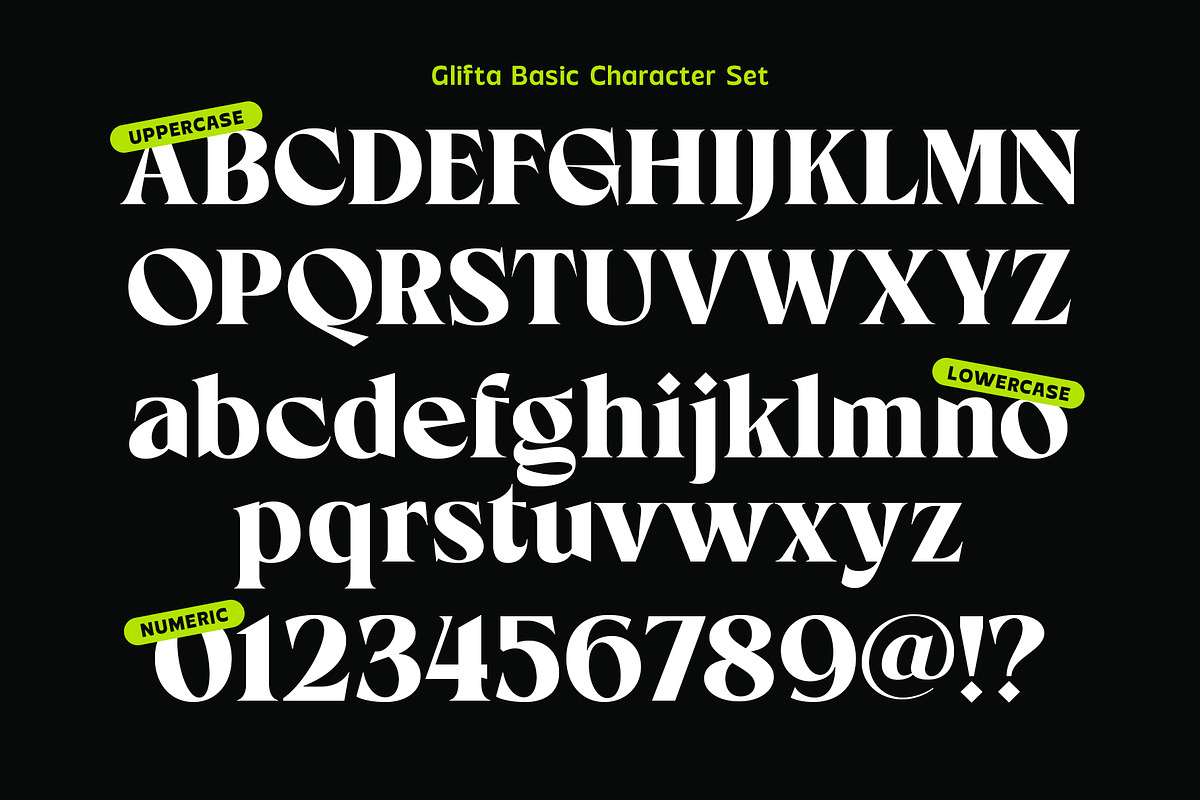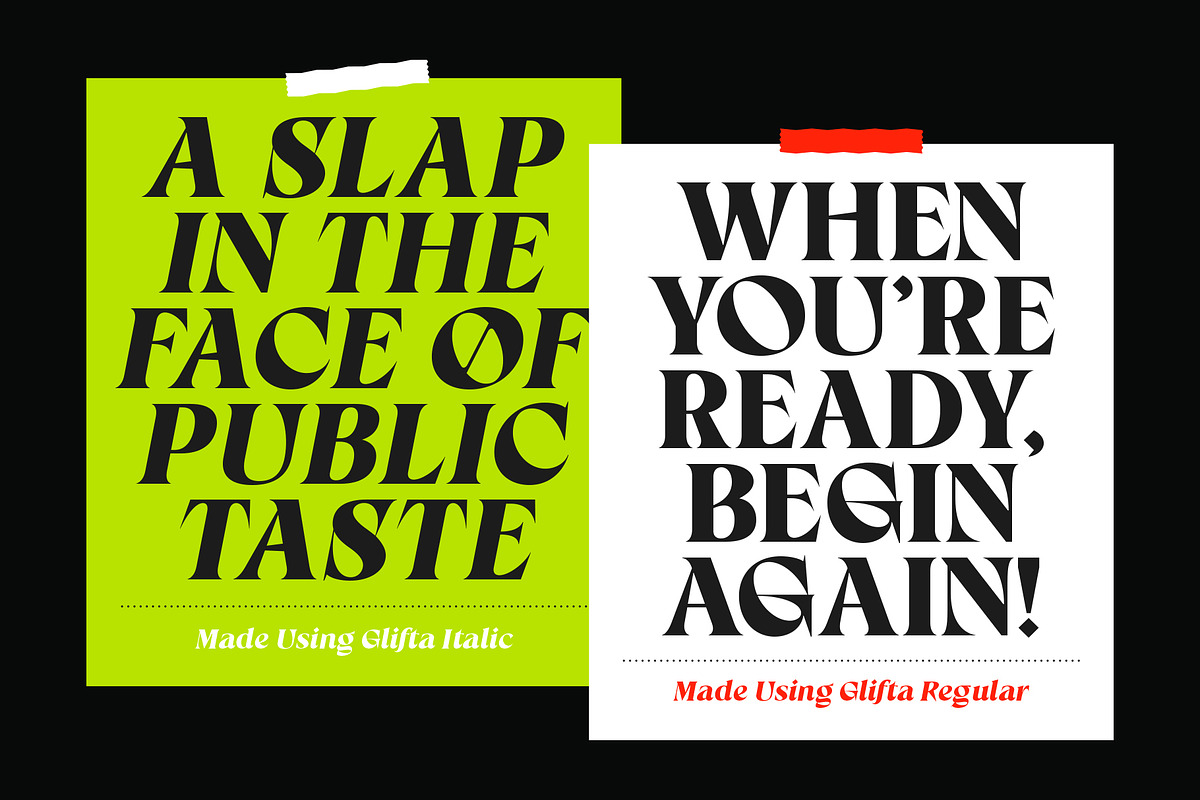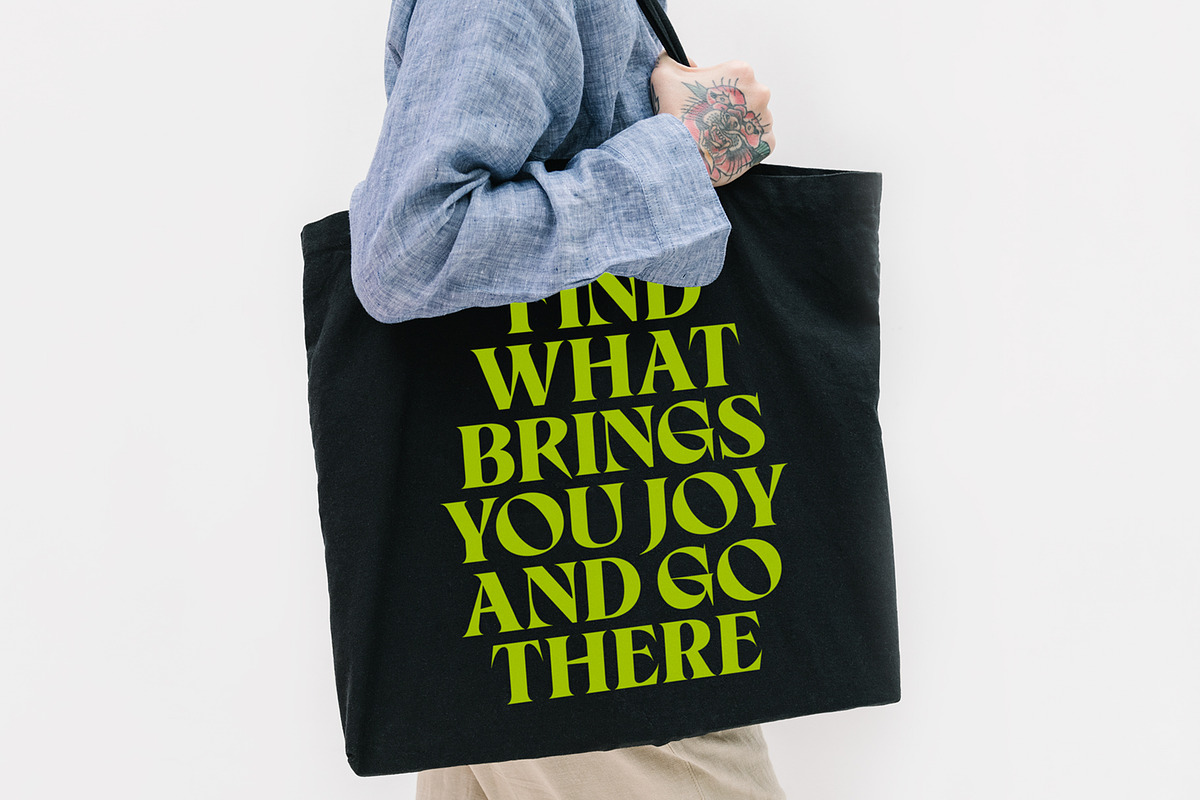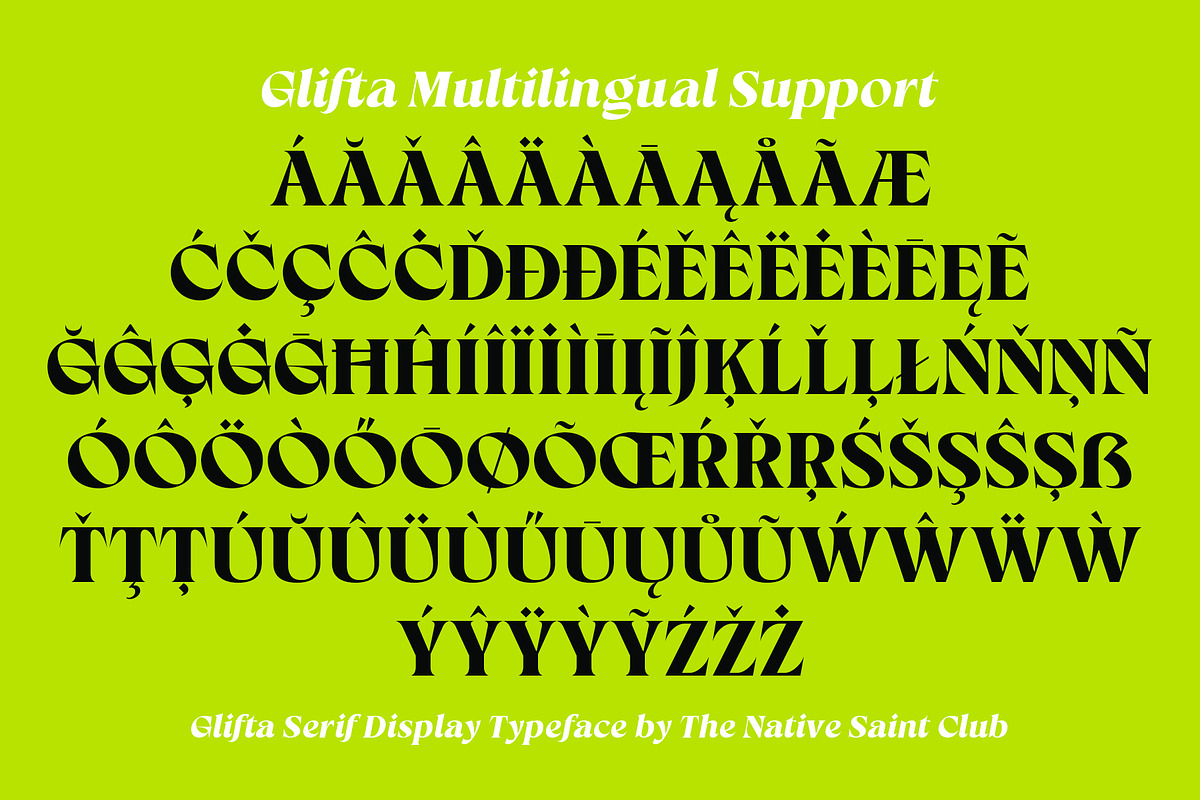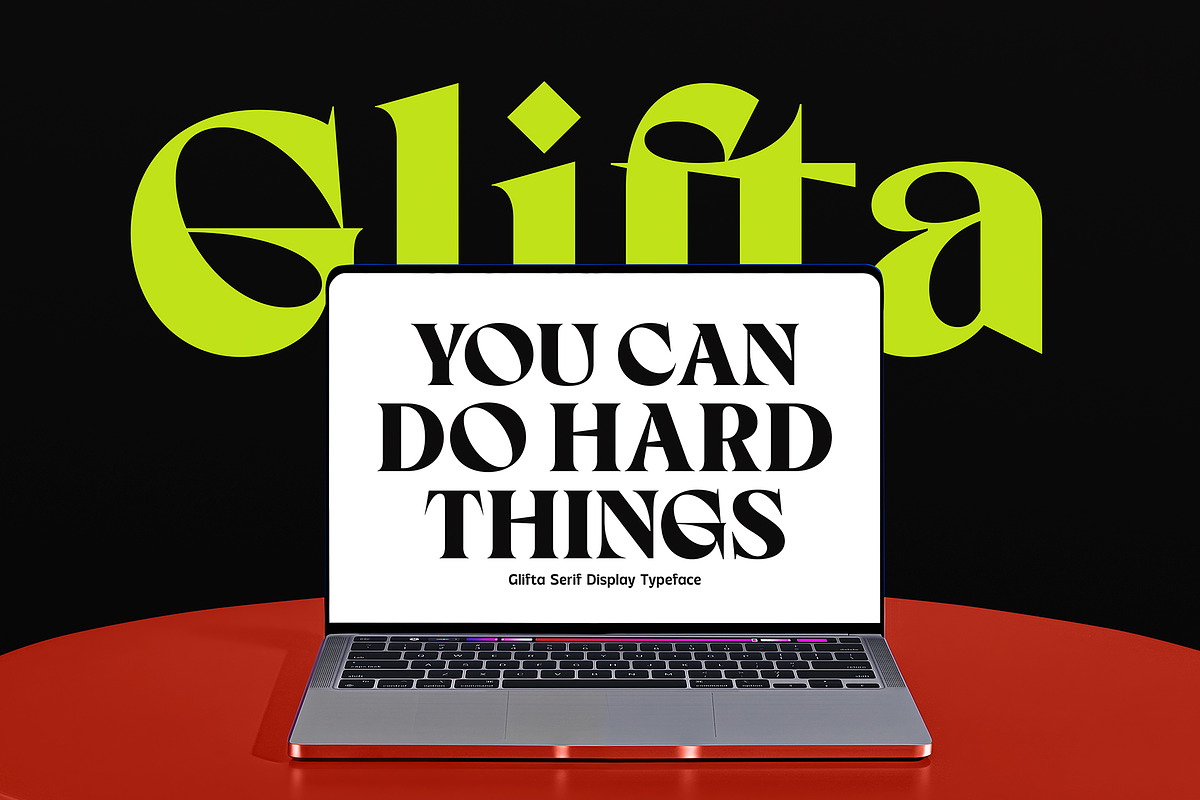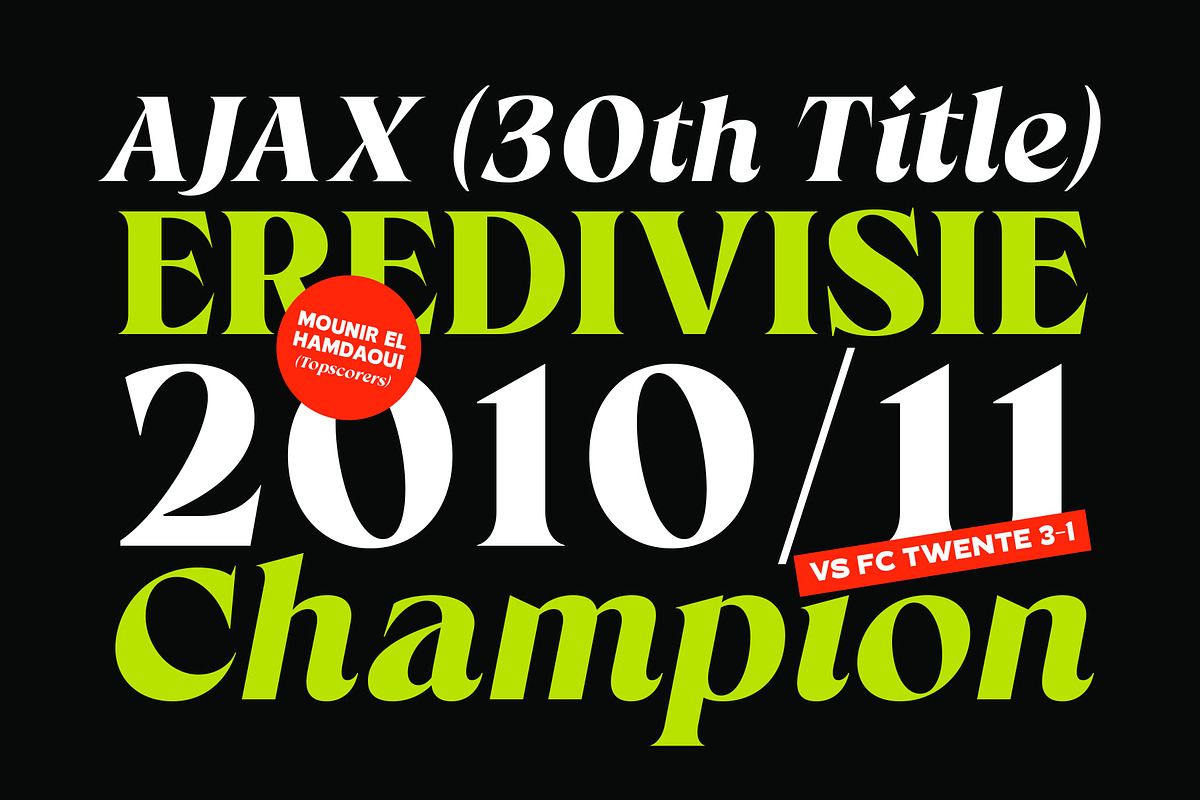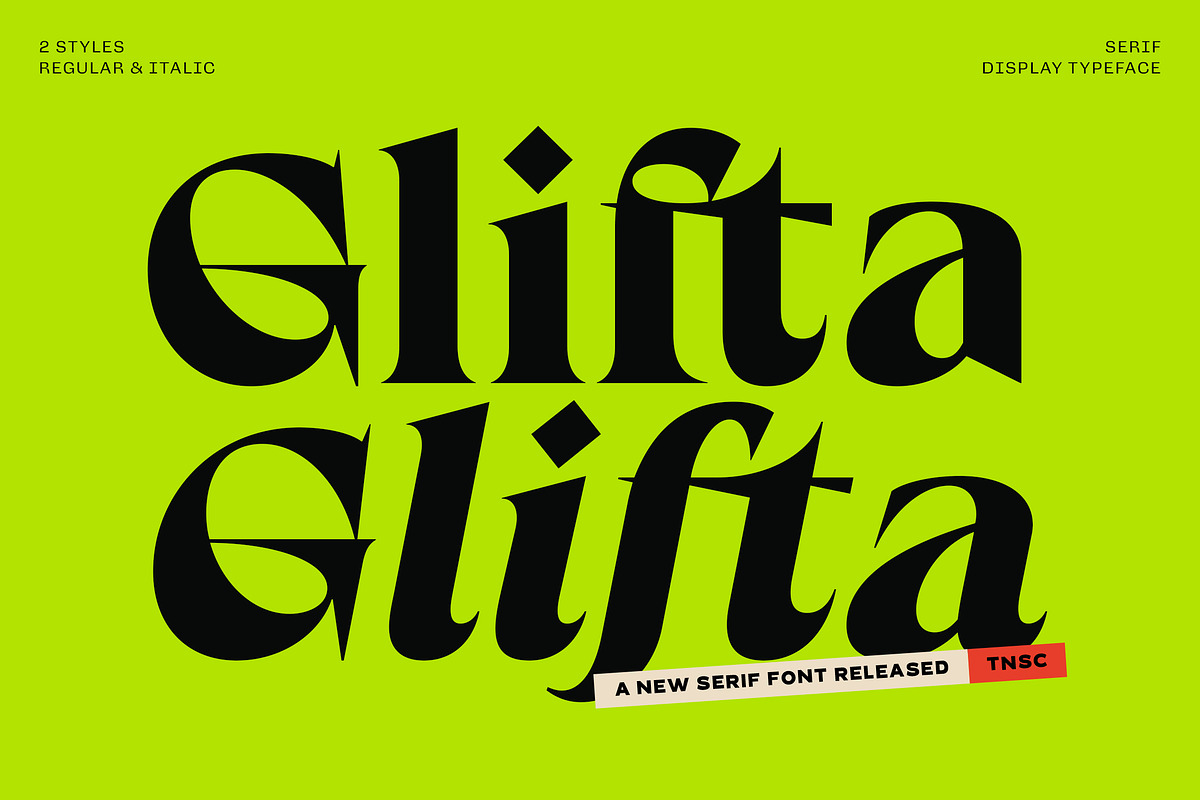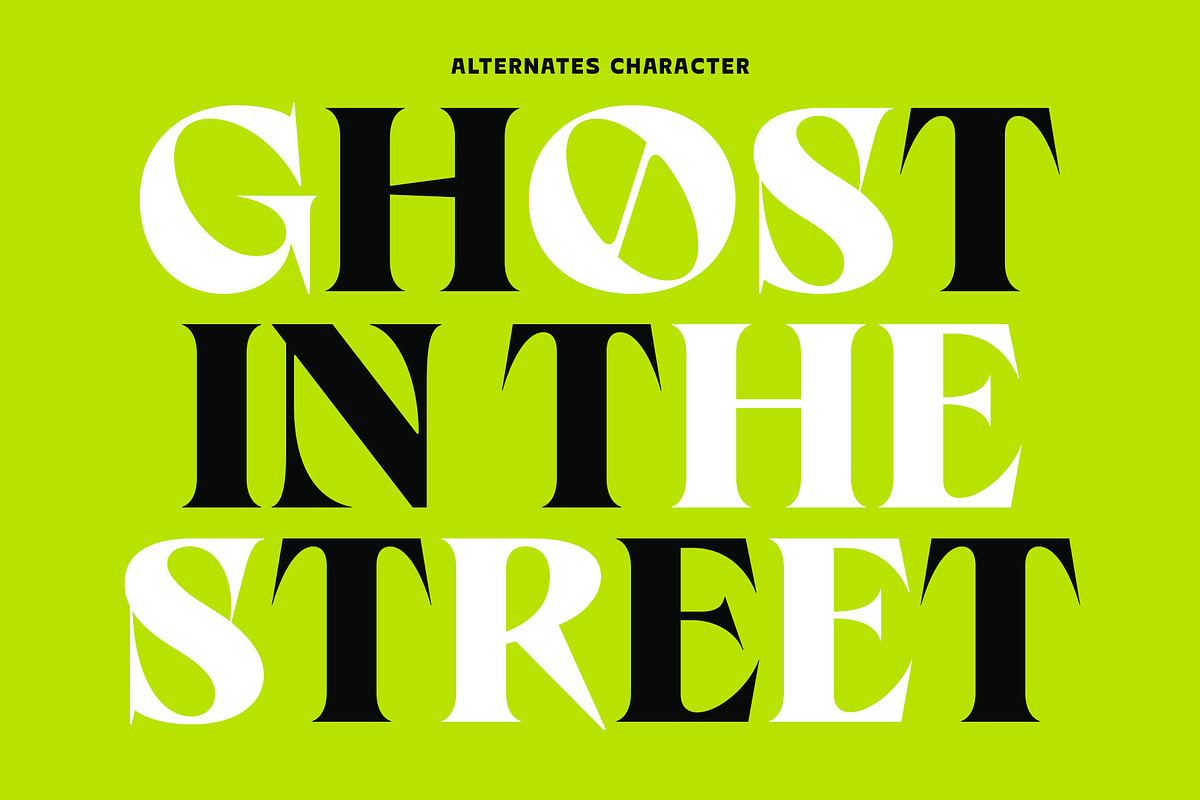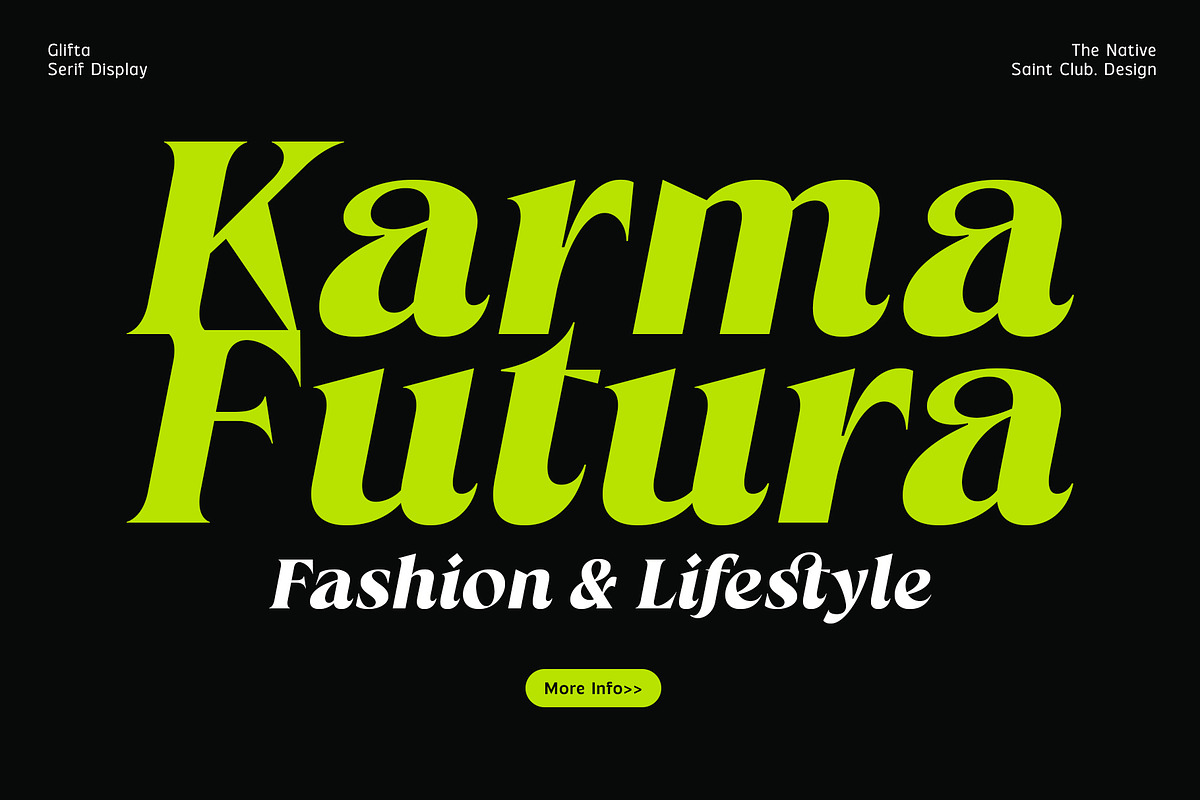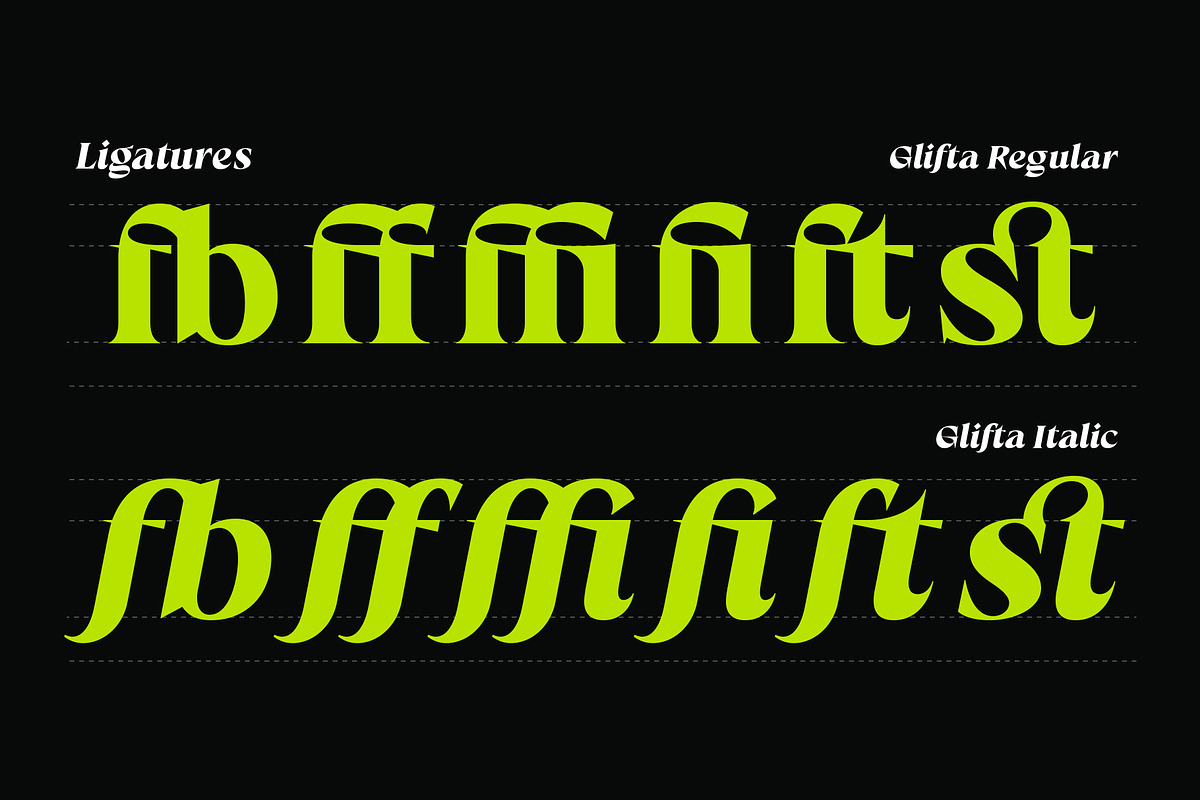
TNSC Glifta - Display Serif
Glifta - Display serif font with two styles, Regular and italic that you can explore for your various design projects. This font has a strong and bold impression, giving the impression of being bold, direct and dominating! Suitable for any project such as: logos, branding projects, product packaging, quotes, posters and any beautiful project that requires a Bold and Strong Serif taste.